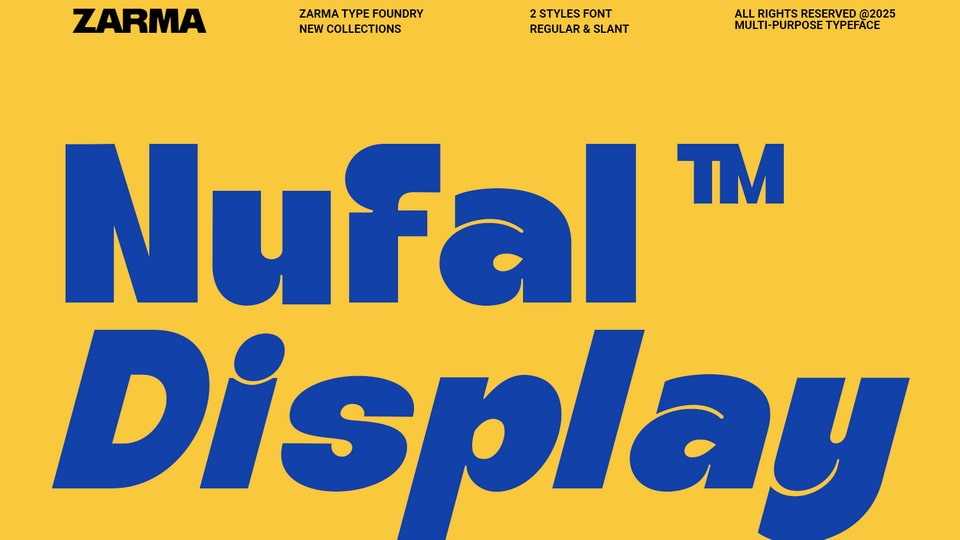
Download Nufal font, a bold display typeface packed with quirky charm and expressive energy, making every word feel like a main character.
Designer: Zarma Type Foundry